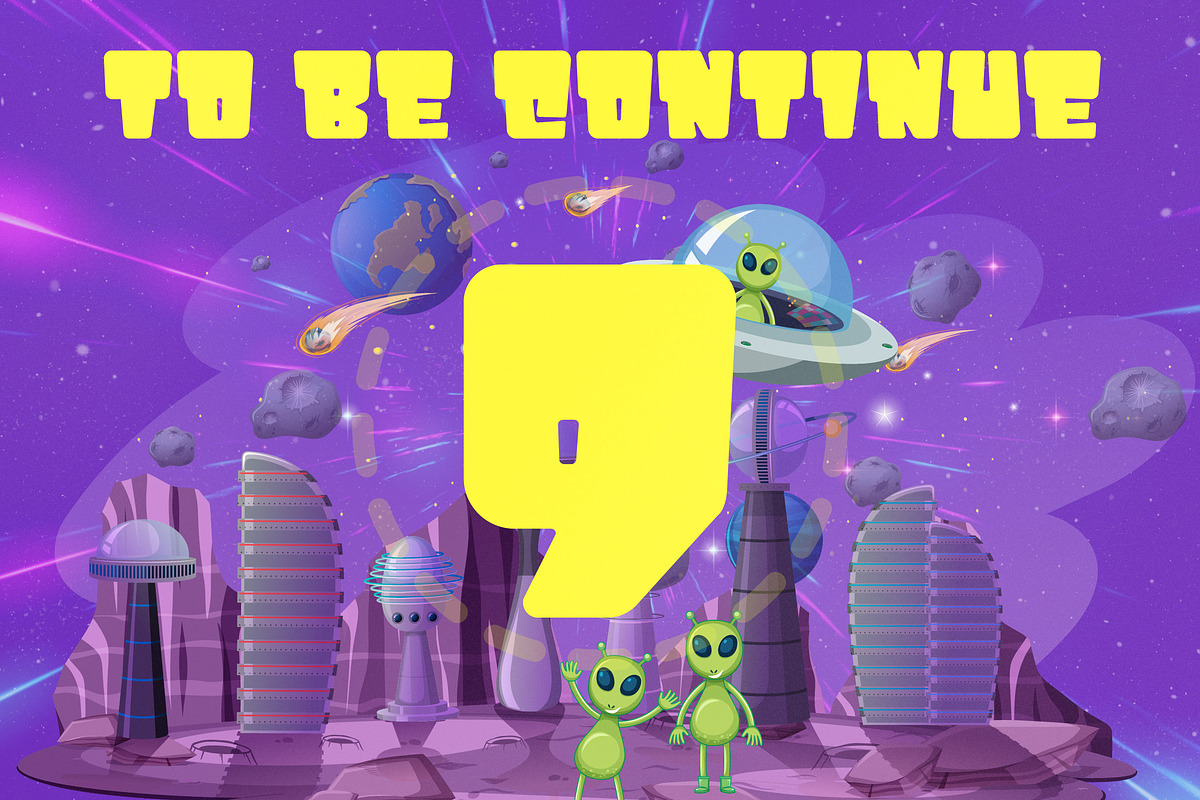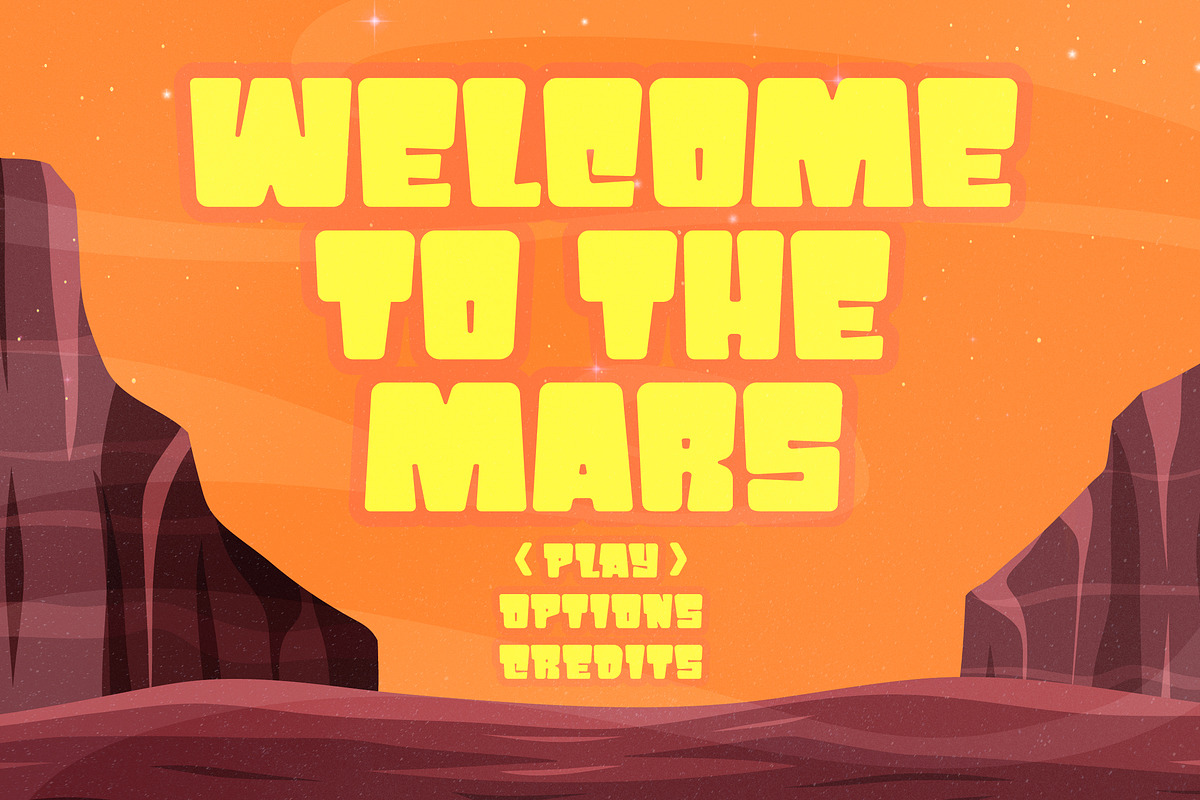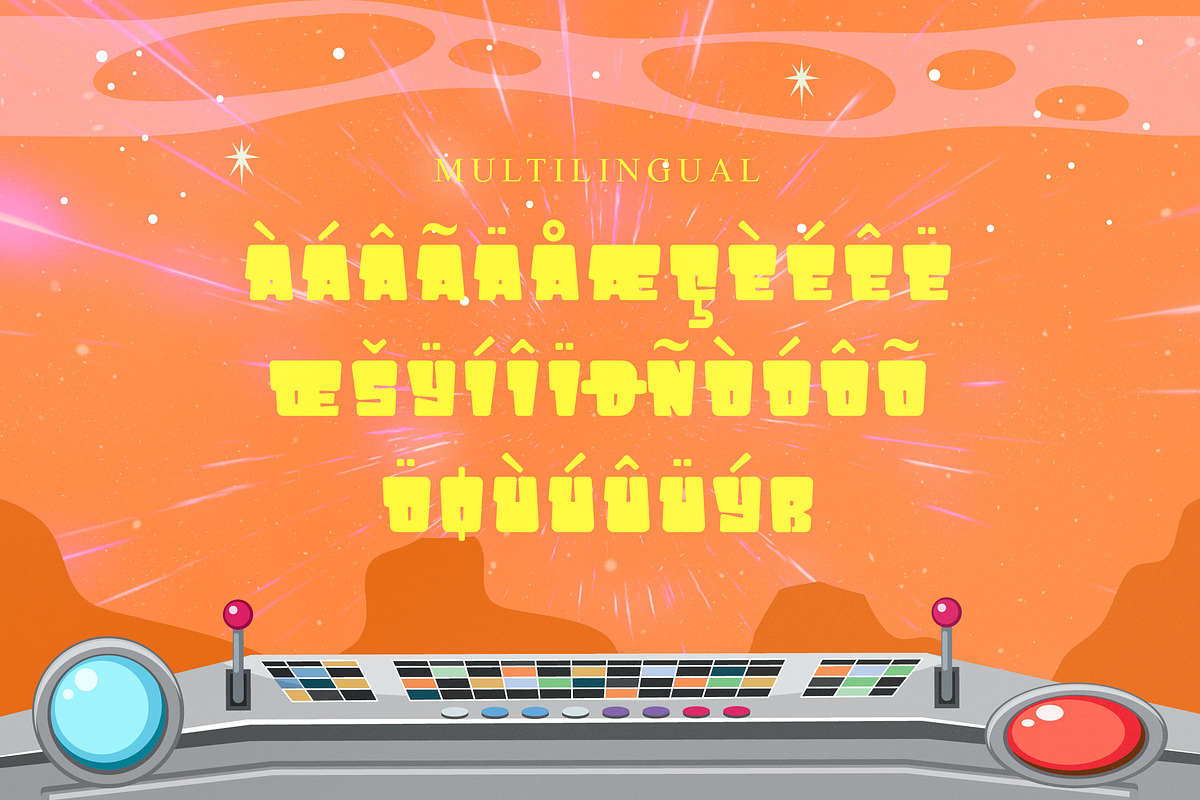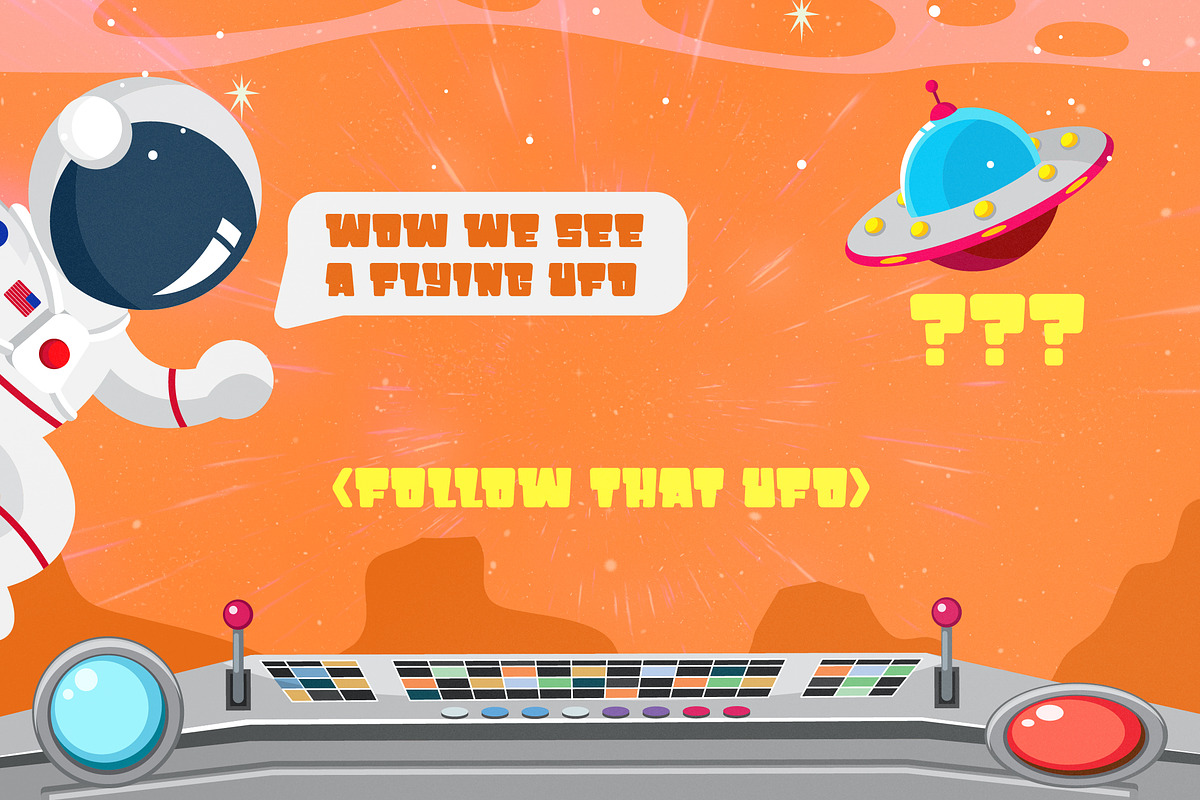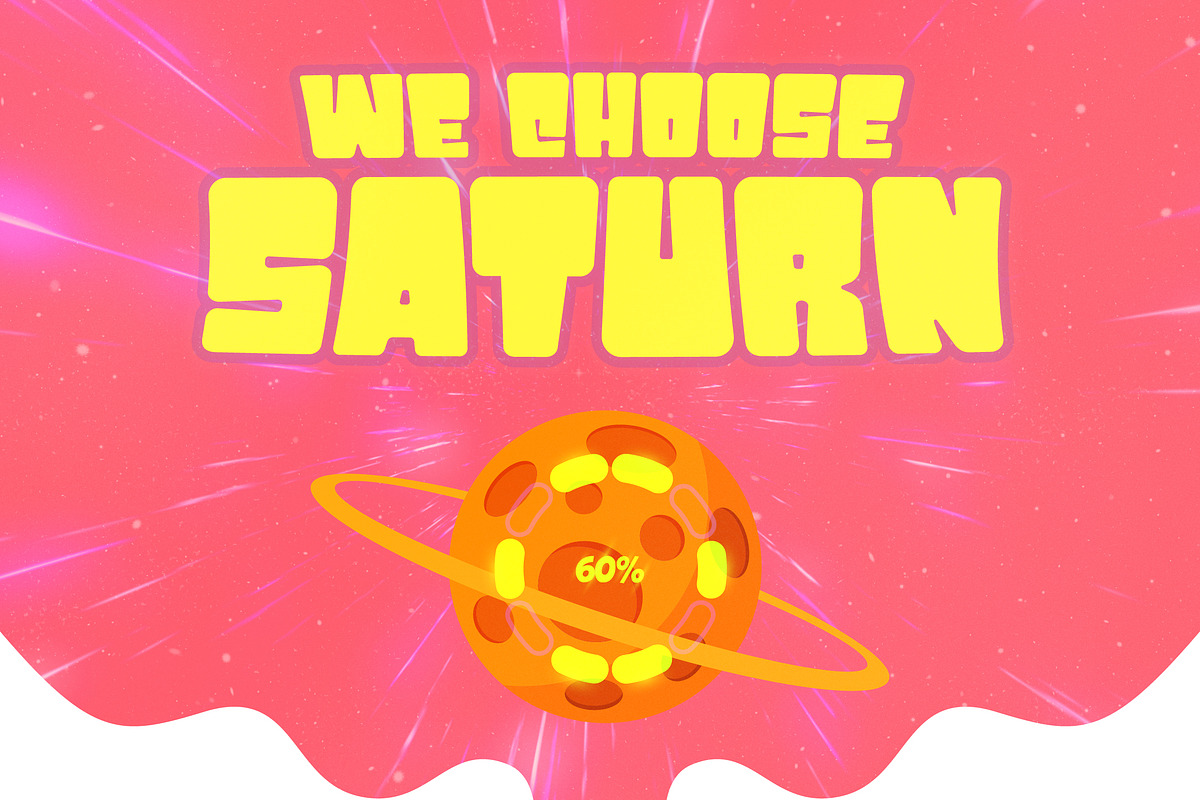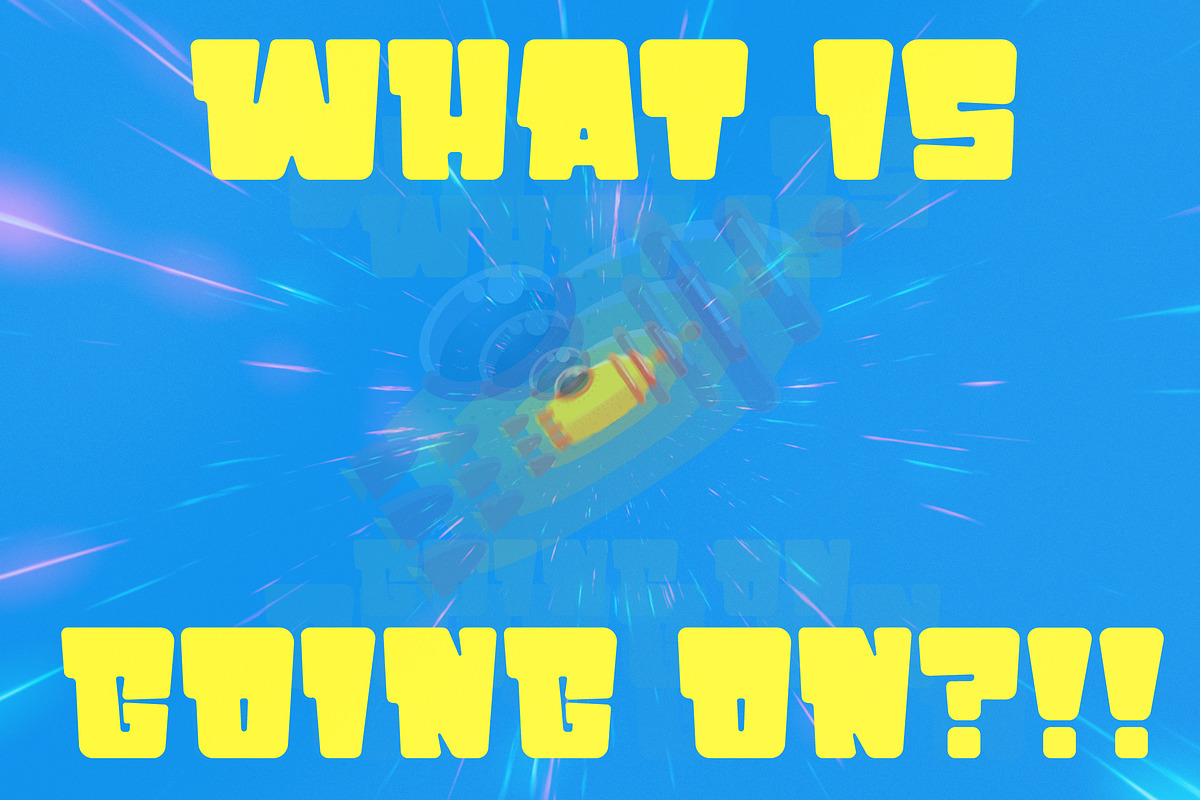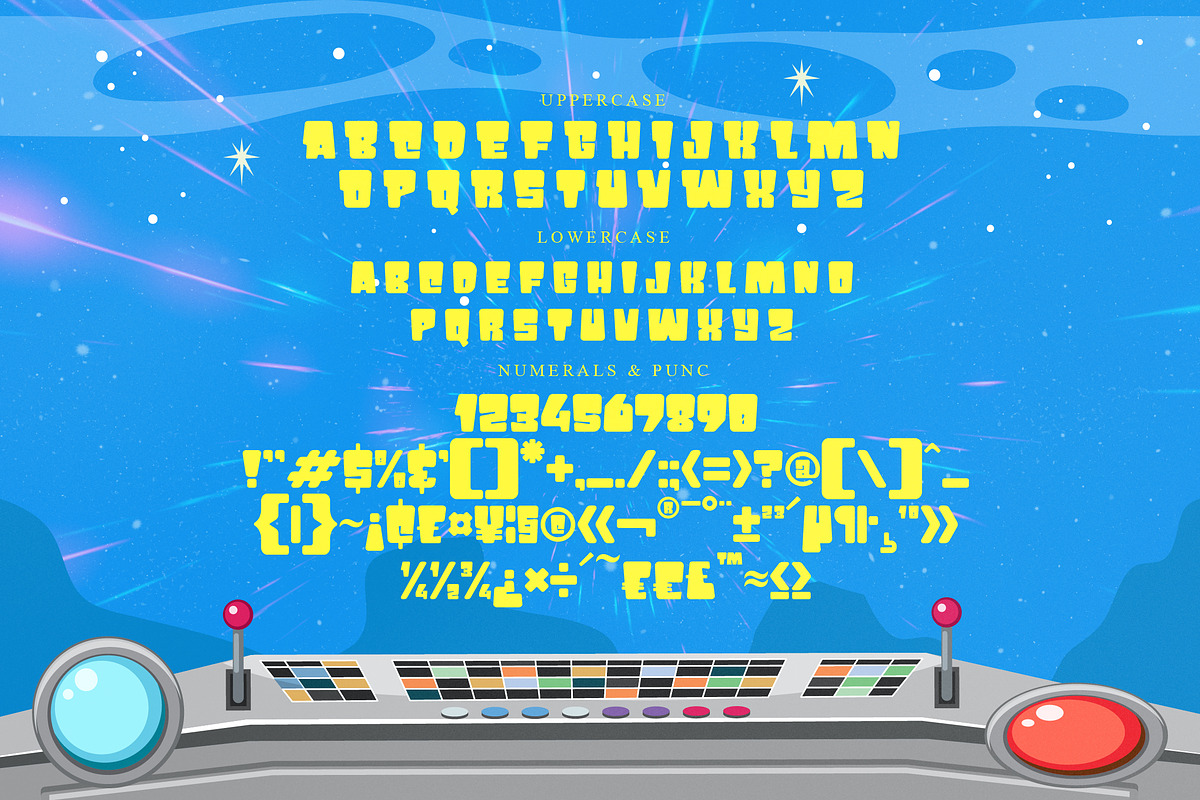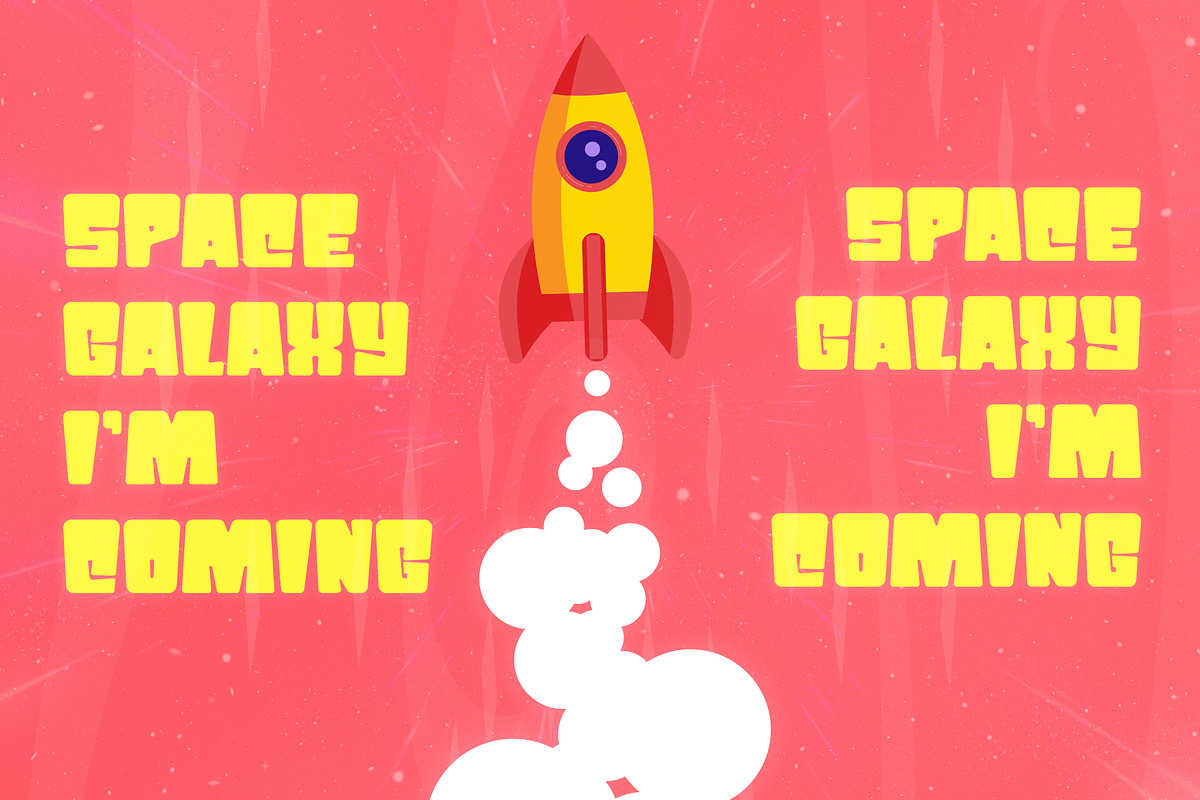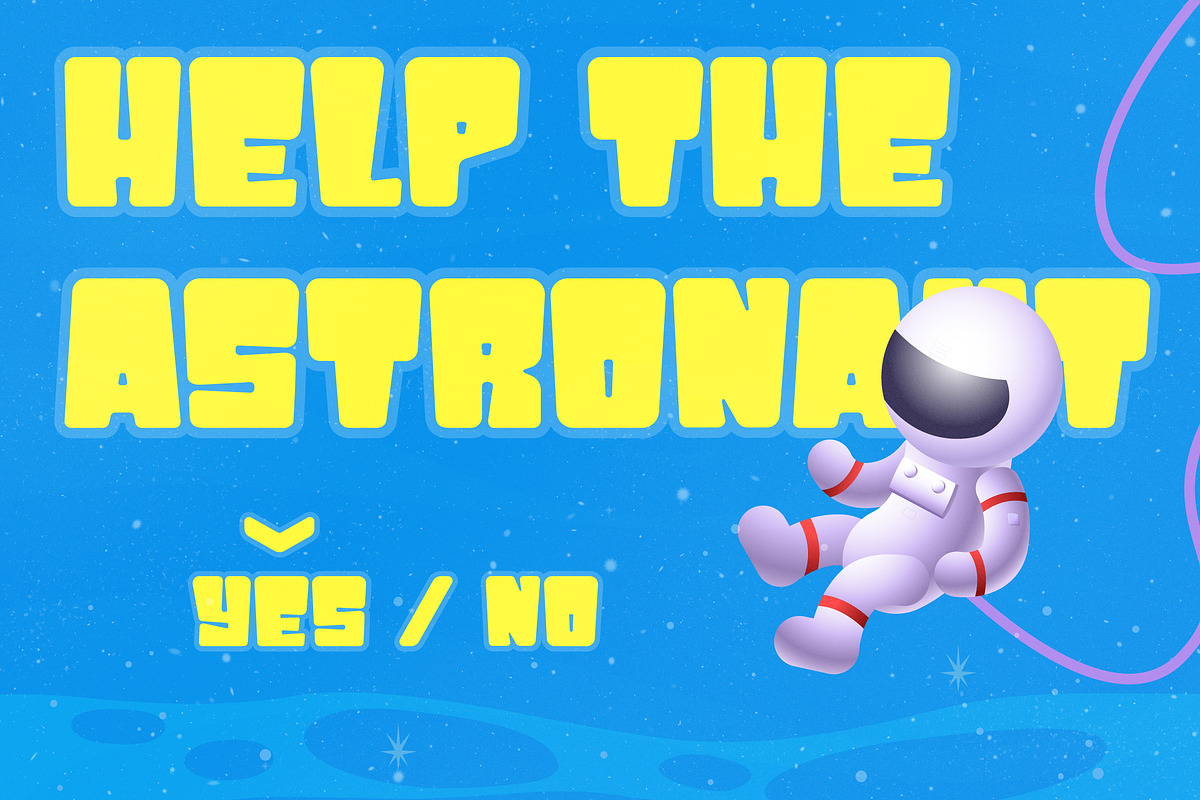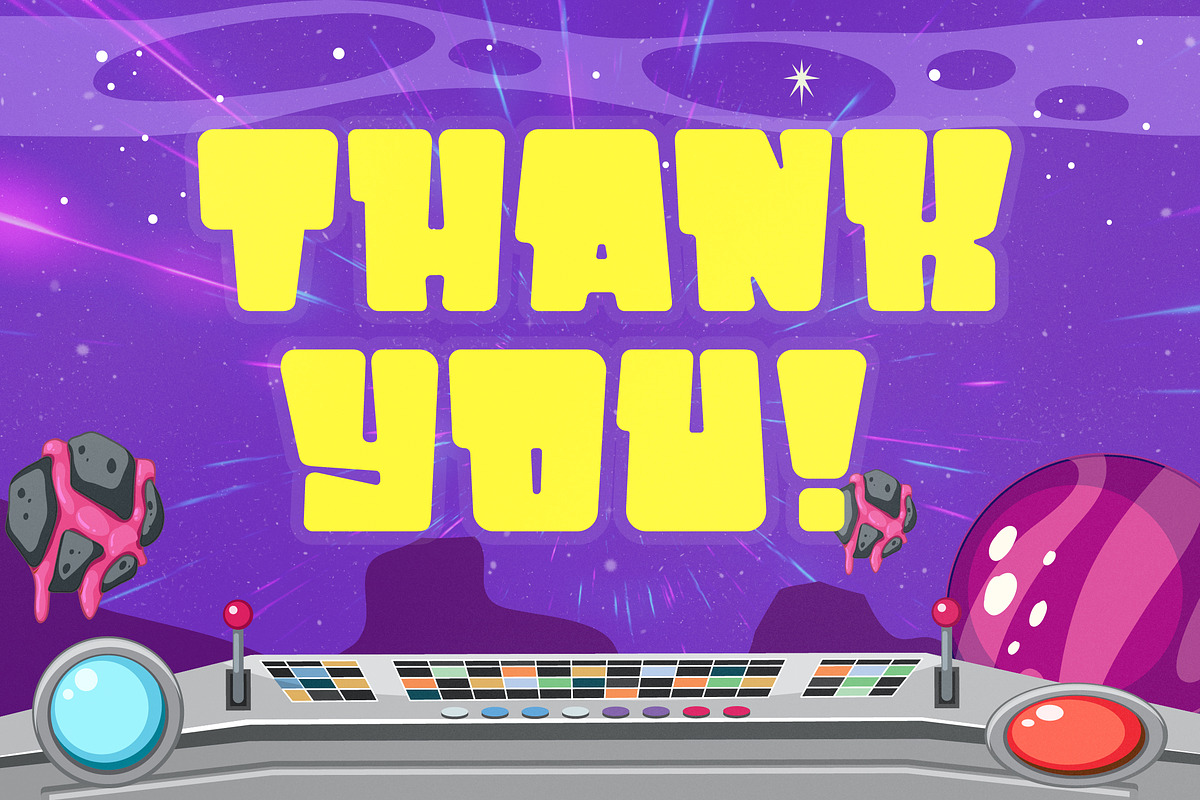
Priko Star Display Typeface Font
Proudly present PRIKO STAR Typeface , created by Storytype, A serif modern and classic typeface that has own unique style & modern look. This typeface is perfect for an elegant & luxury logo, book or movie title design, fashion brand, magazine, clothes, lettering, quotes, and so much more.